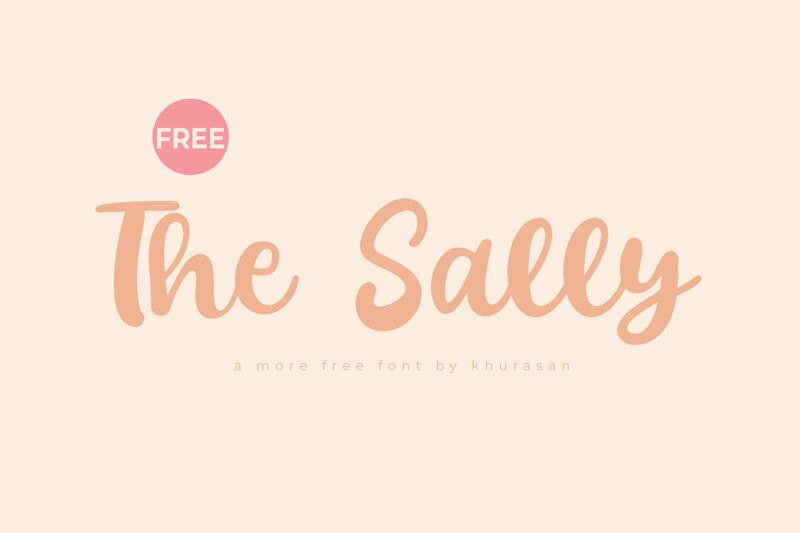
The Sally
The Sally, a semi-bold creation by Khurasan, embodies the charm of handwritten aesthetics with a modern twist. Its flowing curves and slight slant evoke the warmth of personal touch while maintaining an air of professionalism and sophistication. The Sally's strokes suggest confidence and dynamism, making it an excellent choice for designs that aim to be both engaging and elegant.
The playful yet polished look of The Sally is versatile enough to enhance various creative endeavors. From branding projects to personalized stationery, this font promises to add a distinctive flair that can captivate audiences. Whether it graces the pages of a boutique's lookbook or stands out on social media graphics, The Sally is poised to infuse your project with its unique blend of casual grace and contemporary boldness.